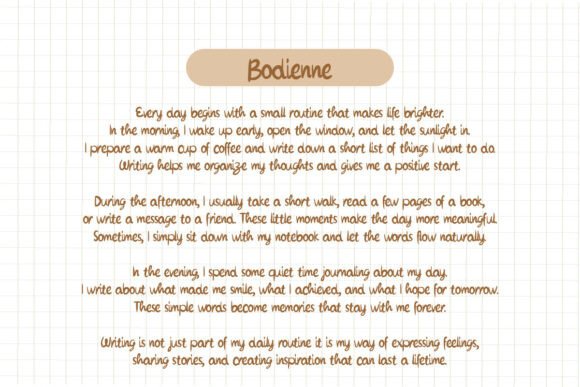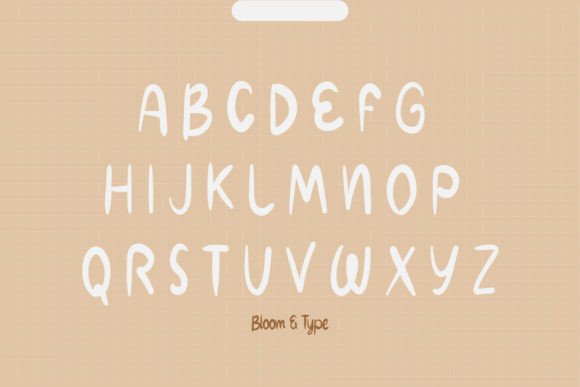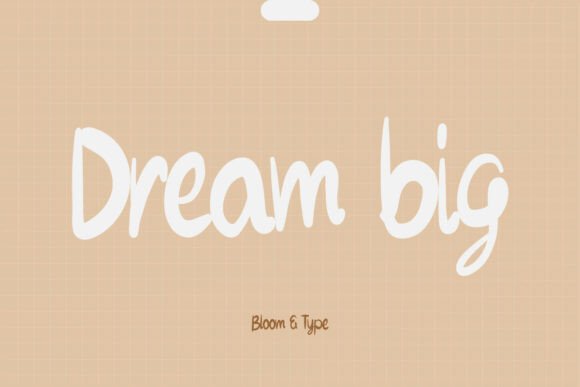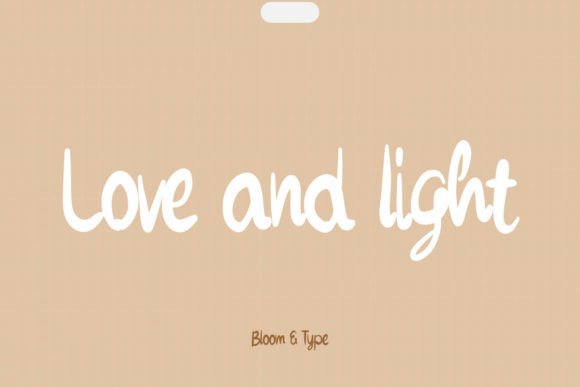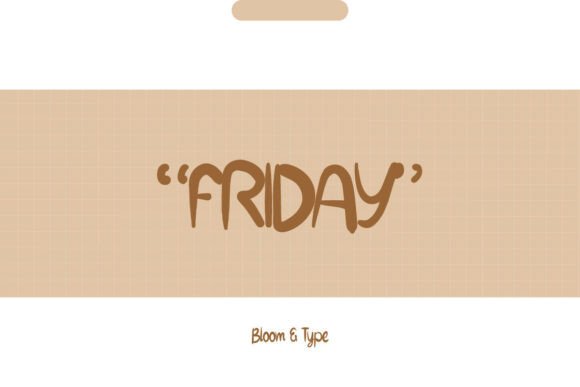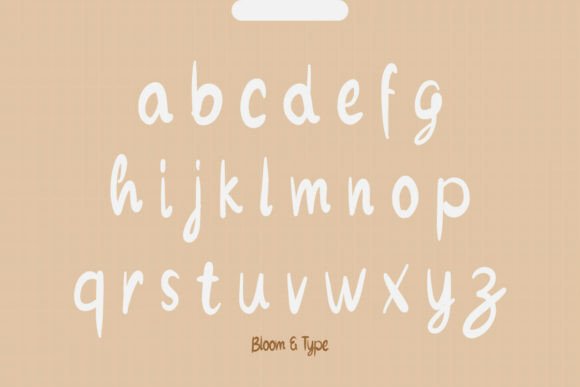
Bodienne Font: A Charming Handwritten Style for Modern Designs
In the world of typography, a font can make or break a design. When it comes to creating a warm, modern, and expressive look, Bodienne Font is an excellent choice. This charming handwritten style blends soft curves with a playful, natural flow, making it perfect for designers and crafters looking to add a personal touch to their projects.
The Characteristics of Bodienne Font
Bodienne Font is characterized by its rounded letterforms and smooth strokes, which create a friendly and approachable feel. Inspired by everyday handwriting, Bodienne brings a sense of authenticity and relaxation to designs, making it ideal for creative projects that need a casual yet stylish look. The slightly organic shapes give it a unique personality, setting it apart from more traditional fonts.
Key Features of Bodienne Font
- Uppercase & Lowercase letters: Bodienne Font includes a full set of uppercase and lowercase letters, allowing designers to create a wide range of designs.
- Numbers & punctuation: The font also includes numbers and punctuation marks, making it a versatile choice for various design projects.
- Smooth handwritten style: Bodienne’s smooth handwritten style gives it a natural and effortless look, perfect for designs that require a personal touch.
- Multilingual support: With multilingual support, Bodienne Font is an excellent choice for designers around the world.
Bodienne Font is a versatile choice for various design projects, including:
- Branding & Logo Design: Create a unique and memorable brand identity with Bodienne Font.
- Social Media Graphics: Add a personal touch to social media graphics, such as Instagram posts, Facebook covers, and Twitter headers.
- Greeting Cards: Create beautiful and heartfelt greeting cards for special occasions.
- Invitations: Design elegant and stylish invitations for weddings, parties, and other events.
- Product Packaging: Add a touch of personality to product packaging with Bodienne Font.
Why Choose Bodienne Font?
So, why choose Bodienne Font for your design projects? Here are a few reasons:
- Unique and expressive: Bodienne Font adds a unique and expressive touch to designs, making them stand out from the crowd.
- Easy to read: Despite its handwritten style, Bodienne Font is easy to read and understand, making it perfect for designs that require clarity.
- Trendy and timeless: Bodienne Font has a trendy yet timeless look, making it suitable for designs that require a modern and classic feel.
- Multilingual support: With multilingual support, Bodienne Font is an excellent choice for designers who work with clients from around the world.
In conclusion, Bodienne Font is a charming handwritten style that blends soft curves with a playful, natural flow. Its unique characteristics, versatility, and ease of use make it an excellent choice for designers and crafters looking to add a personal touch to their projects. Whether used for branding, social media, packaging, or quote designs, Bodienne Font is sure to bring a gentle handwritten vibe that feels both trendy and timeless.
So, if you’re looking for a font that can add a touch of personality and warmth to your designs, look no further than Bodienne Font. With its smooth handwritten style, multilingual support, and ease of use, Bodienne Font is the perfect choice for your next design project.